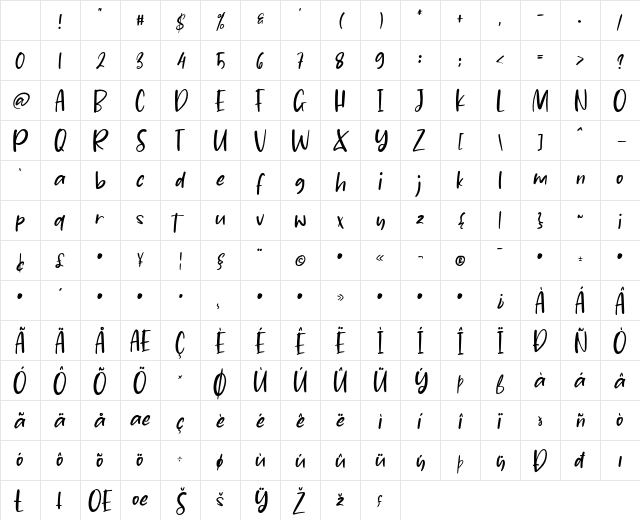
Jasmine Daily is a composed and adaptable typeface that performs quietly and consistently across a wide range of design contexts.
Pro Tip: Use Jasmine Daily in both headline and body roles to test its range before committing to a single application.